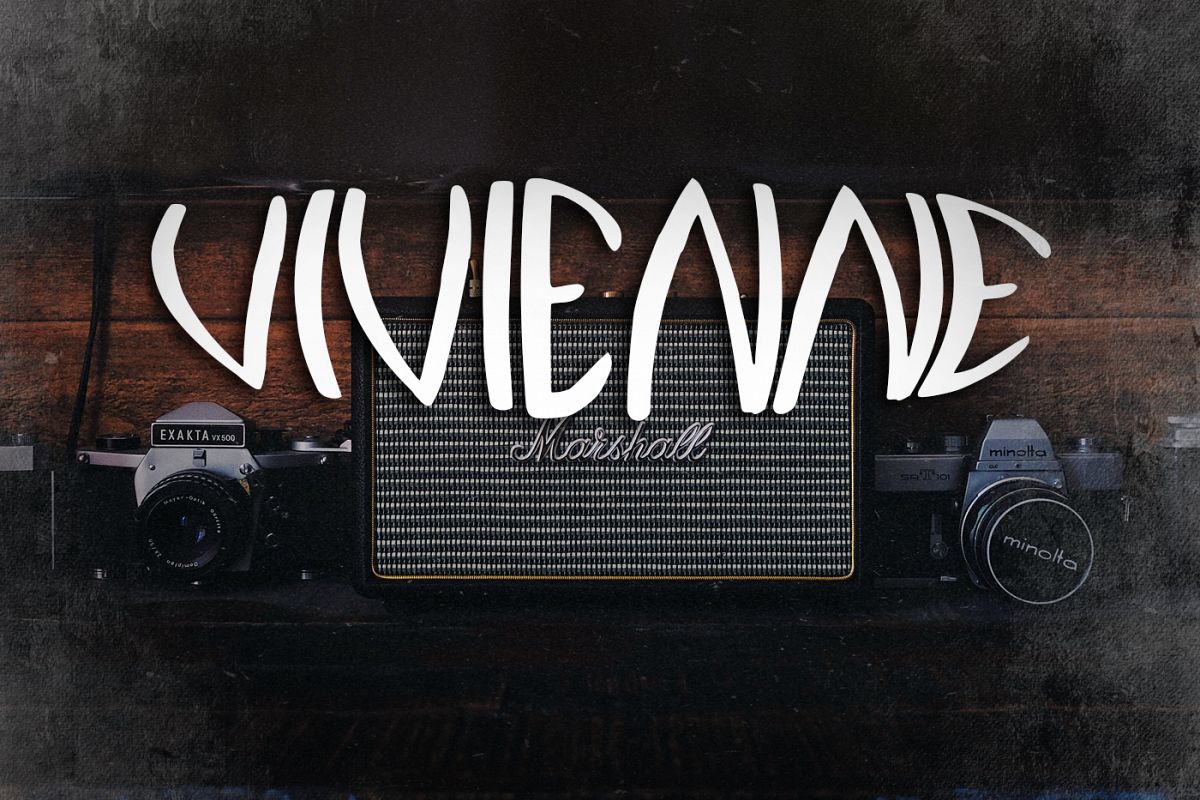
Vivienne Font
It's a wonderful font with a unique, detailed and handmade look.
These fonts look amazing in all caps with a wide-set spacing if you want to try a classy look or beautiful on its own in the capital and lowercase letters for something completely timeless.
Perfect for gorgeous logos, displays, headers, invitations, save the dates, weddings, titles, web layouts, and branding, etc.